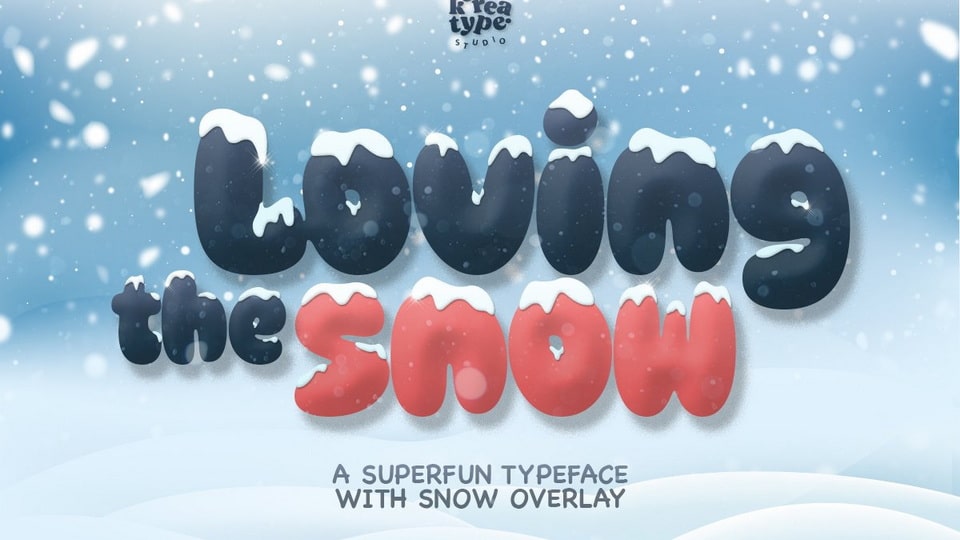
Download Loving Snow font, a superfun display typeface with a wide and bold. It can be used alone, or with the overlay version placed on top for a snow-capped effect.
Designer: Kereatype Studio